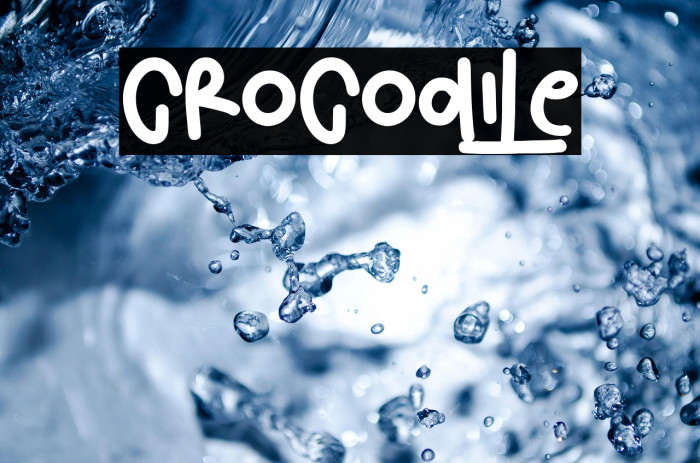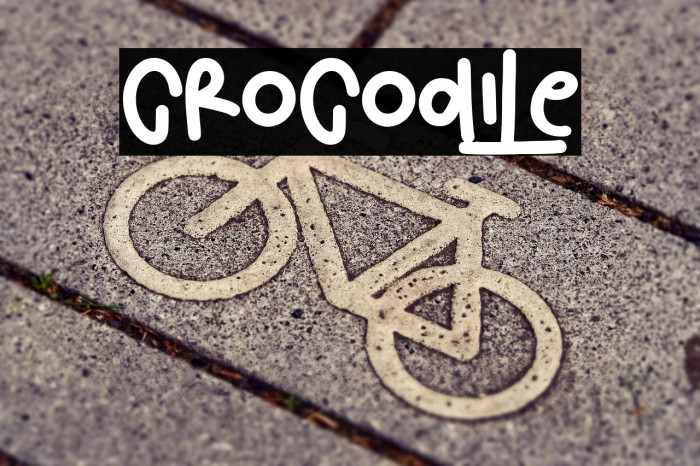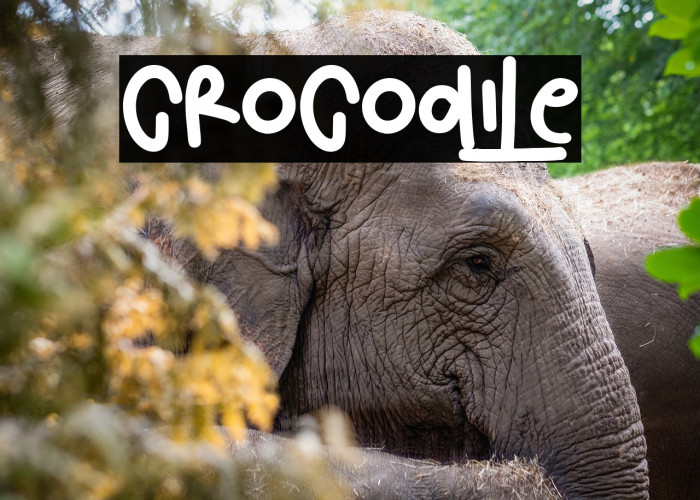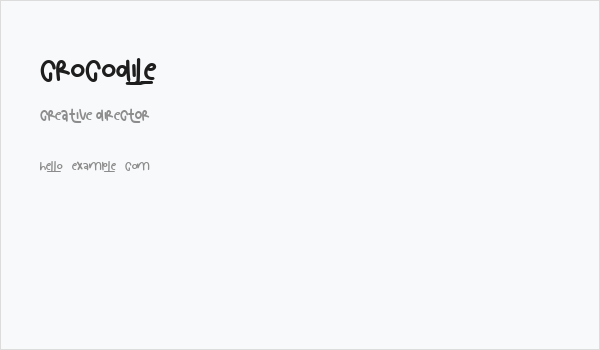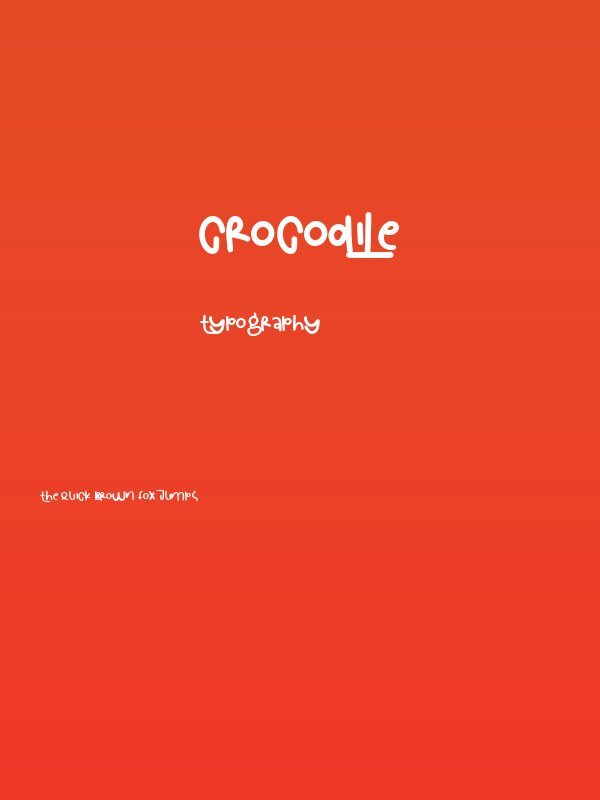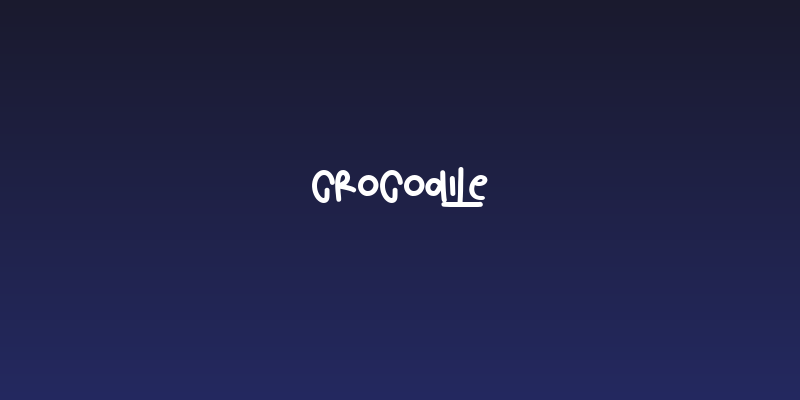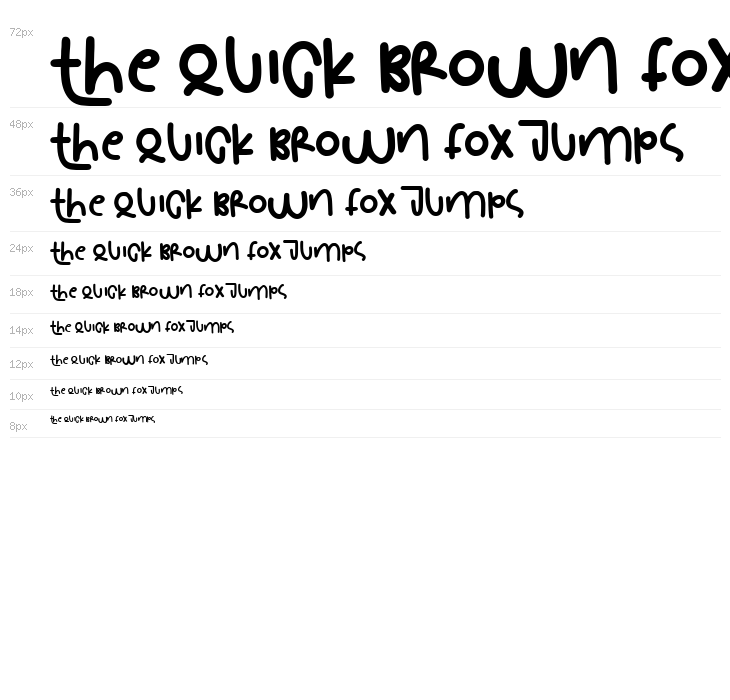
Crocodile Font
Crocodile Description
This playful and bold font features a handwritten style with a unique and quirky character design. The letters are rounded and slightly irregular, giving them a friendly and approachable appearance. The strokes are thick and consistent, providing a strong visual impact. The font maintains a casual and informal tone, making it suitable for creative and fun projects. Its distinctive style is characterized by exaggerated curves and loops, particularly noticeable in letters like 'g', 'j', and 'y'. The overall design is cohesive, with a consistent stroke width that enhances readability while maintaining its whimsical charm.
| Proposed Projects | Ideal for children's books, playful branding, greeting cards, and creative posters. |